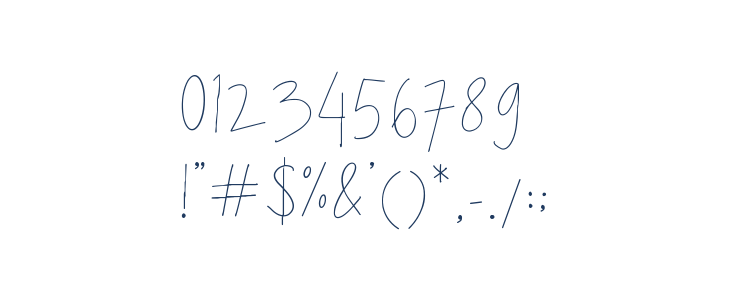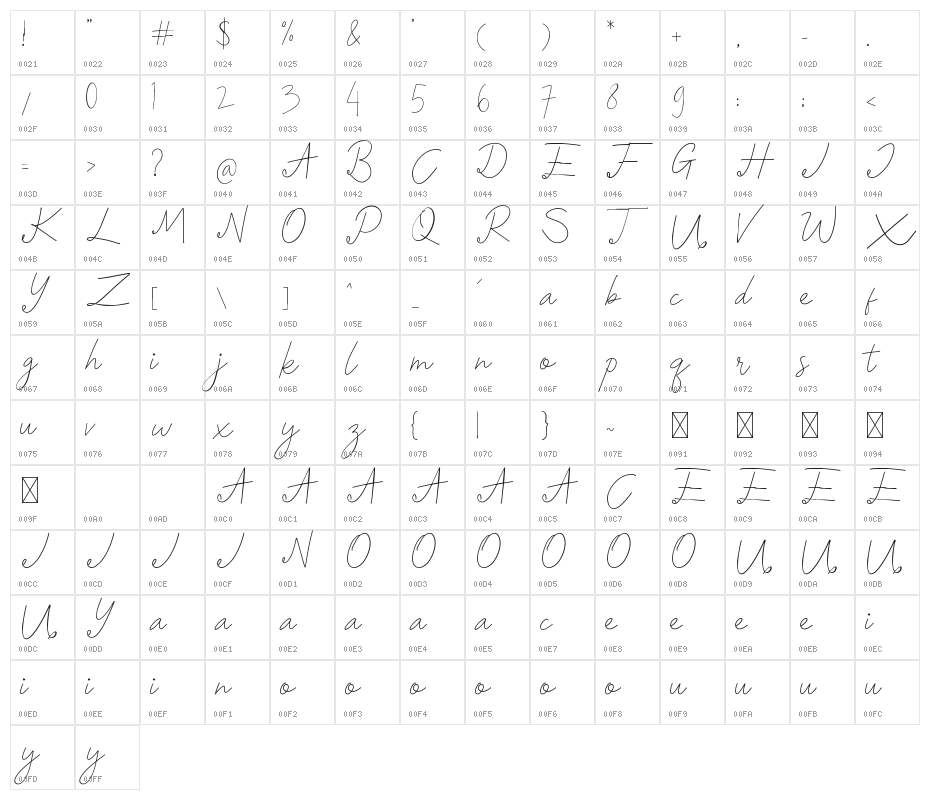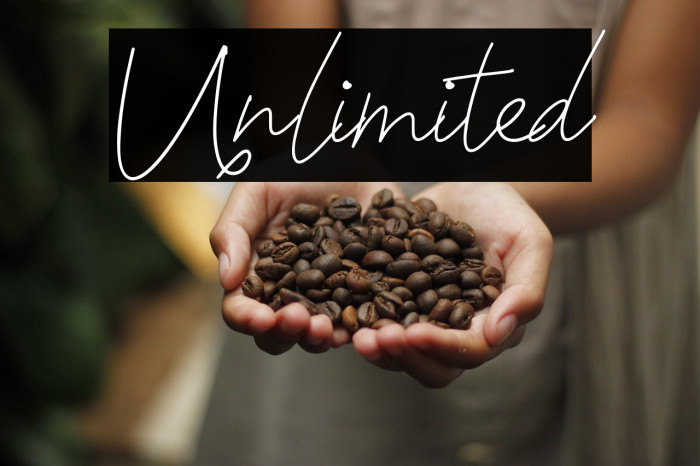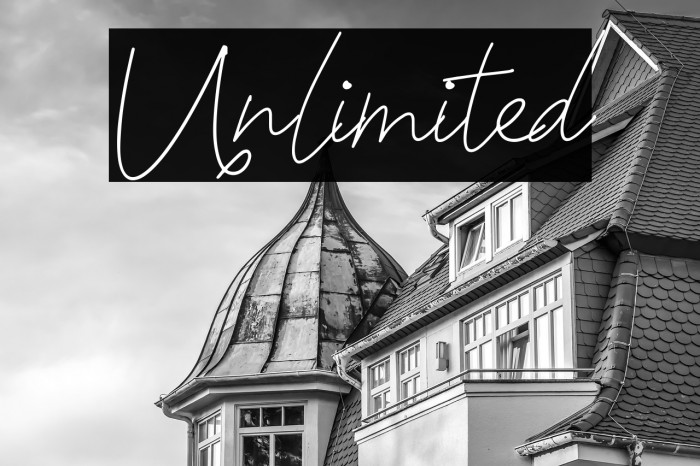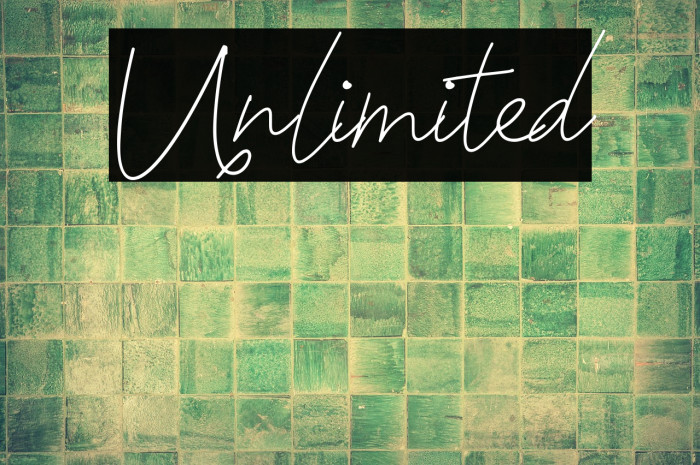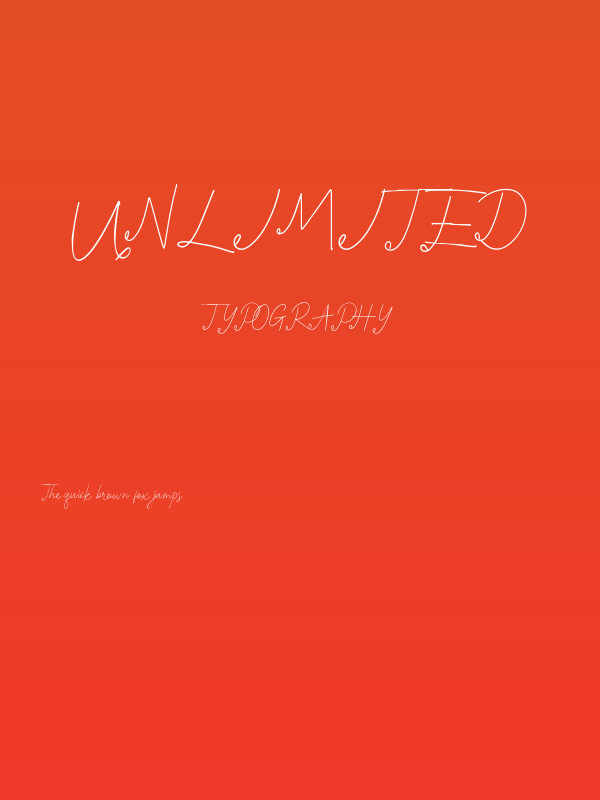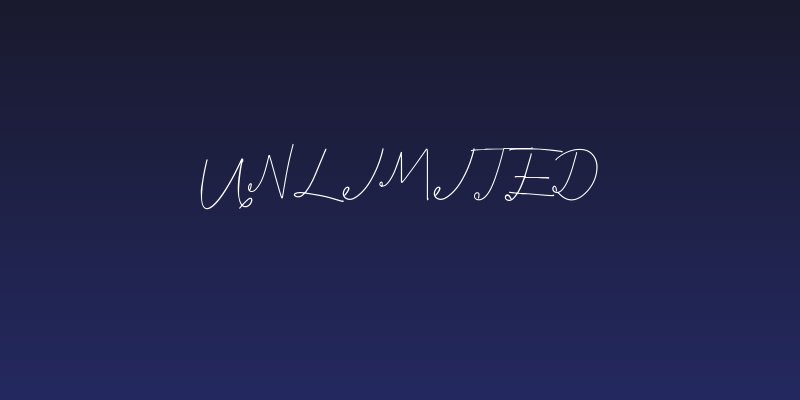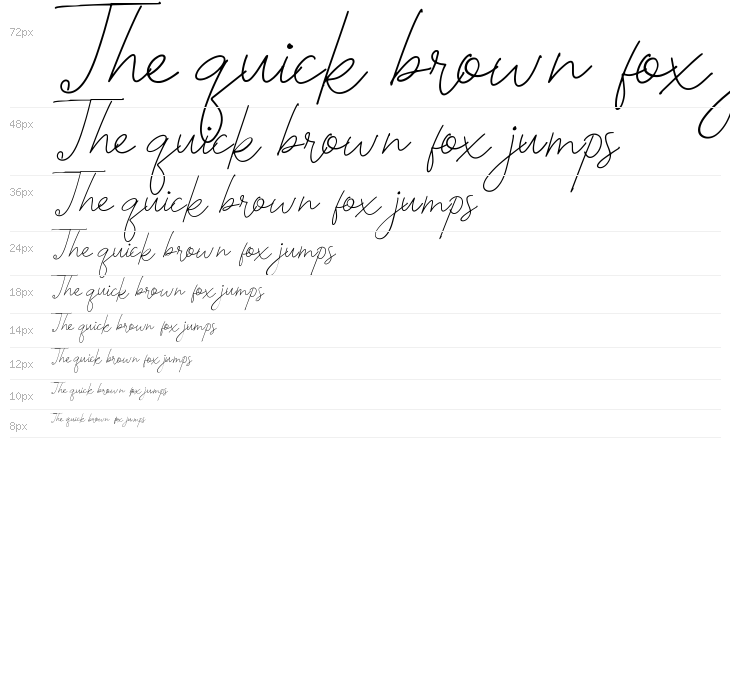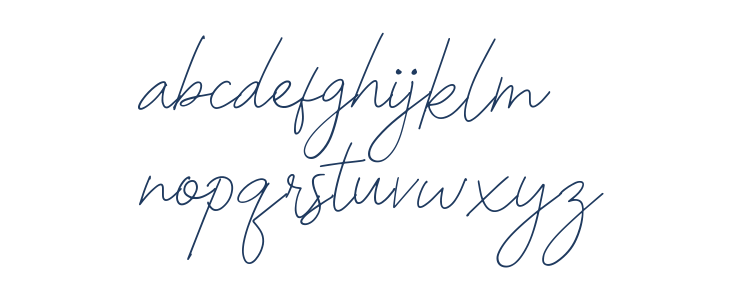
Unlimited Font
Unlimited Description
This elegant script font features a delicate and flowing design, characterized by its thin, graceful strokes and subtle curves. The uppercase letters exhibit a sophisticated flair with extended loops and swashes, while the lowercase letters maintain a consistent fluidity, enhancing the font's overall elegance. The numerals and special characters are crafted with the same attention to detail, ensuring a cohesive appearance across all elements. This font's airy and refined style makes it ideal for projects that require a touch of sophistication and class.
| Proposed Projects | Ideal for wedding invitations, elegant branding, personal stationery, and upscale packaging. |